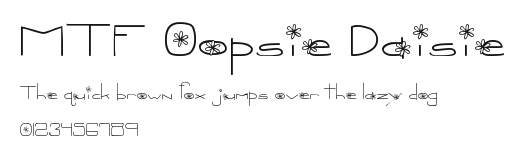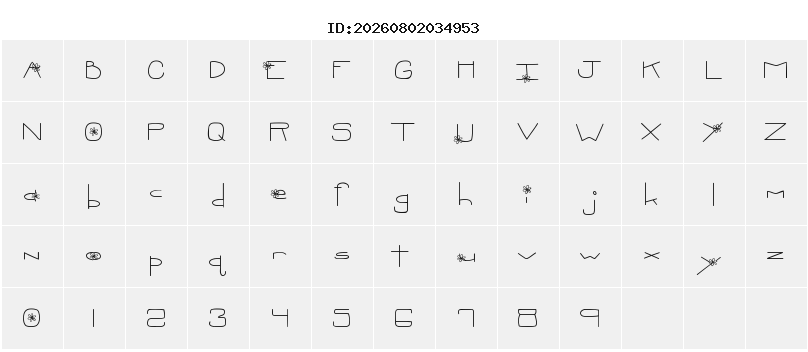
MTF Oopsie Daisie Preview
• Font Name: MTF Oopsie Daisie
• Full Font Name: MTF Oopsie Daisie
• Designer: Miss Tiina
About MTF Oopsie Daisie.ttf
MTF Oopsie Daisie.ttf is a modern, elegant sans-serif font designed for ultimate readability and visual harmony. Perfect for branding, headlines, web design, and print materials.